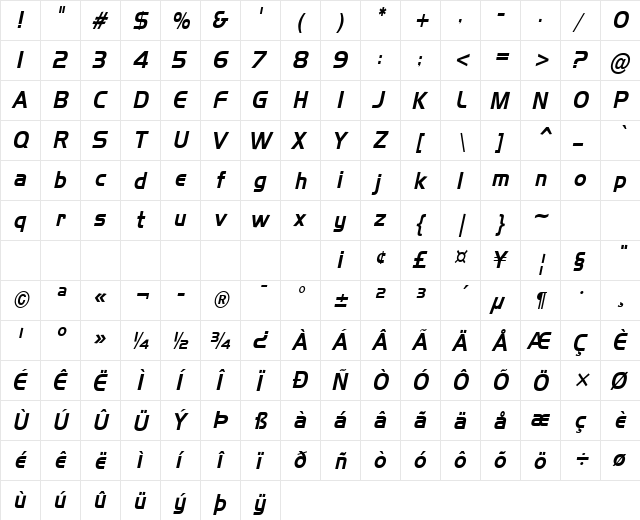
Hanzel-Condensed Italic Font Preview
Design Context for Hanzel-Condensed Typeface
Hanzel-Condensed is a composed and adaptable typeface that performs quietly and consistently across a wide range of design contexts. The slanted form adds forward momentum and visual energy. The condensed width makes it efficient for tight spaces without sacrificing legibility.
Pro Tip: Try Hanzel-Condensed for annotation and caption copy alongside an upright companion — the contrast in angle creates a dynamic but ordered typographic system.